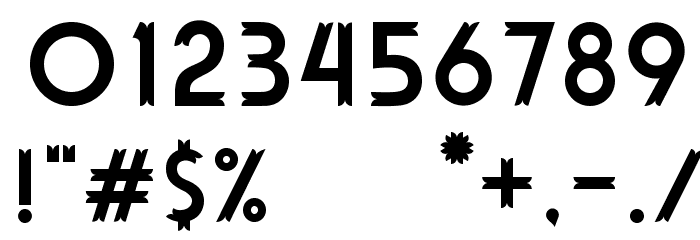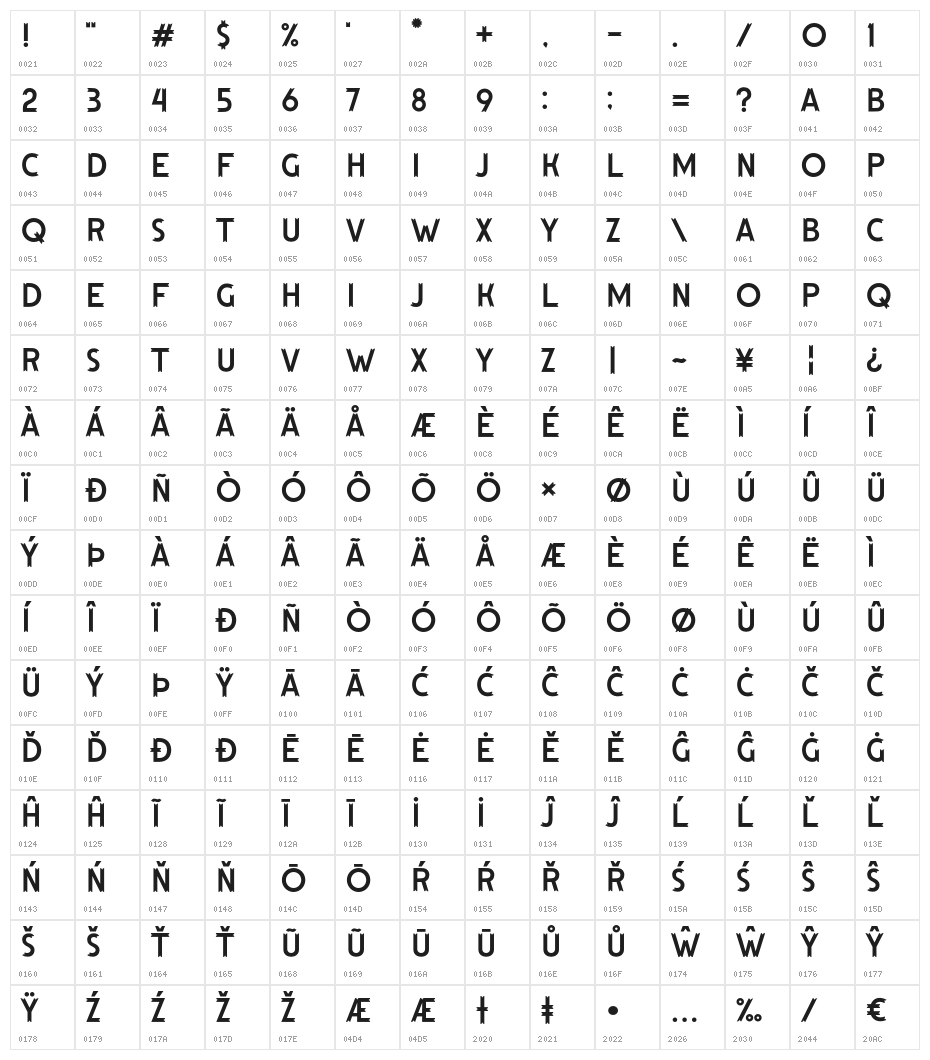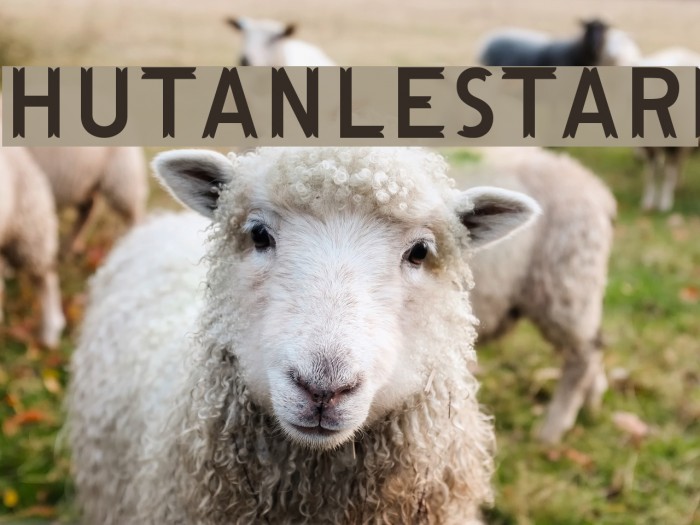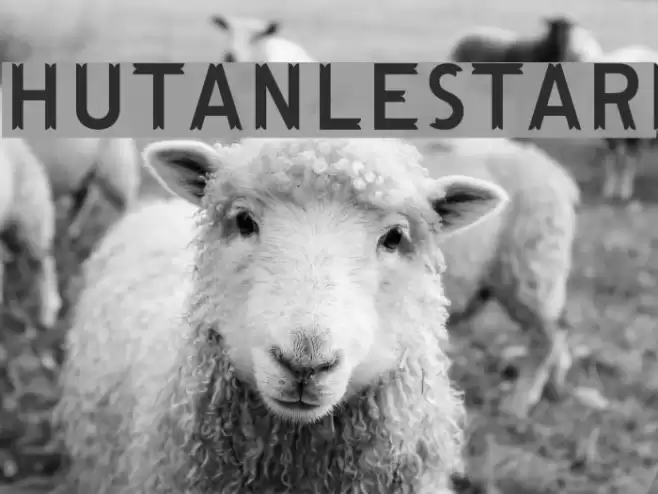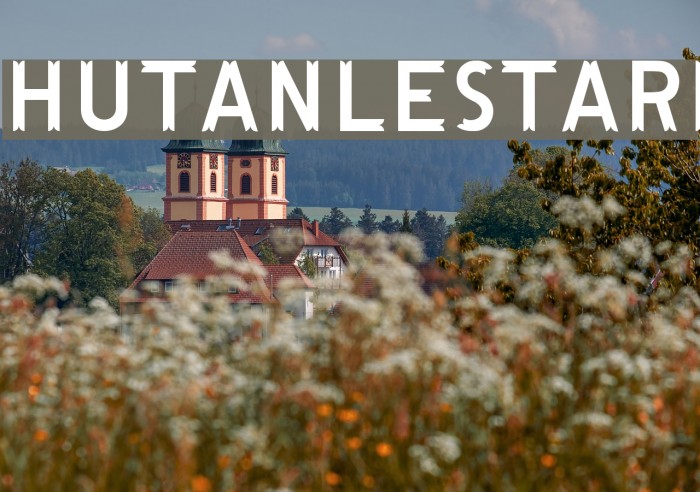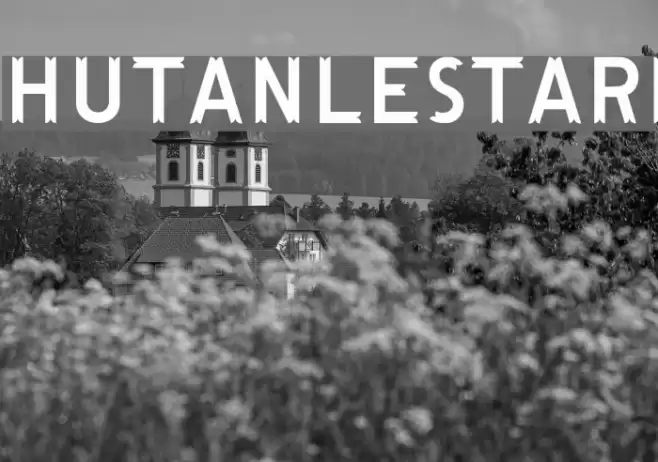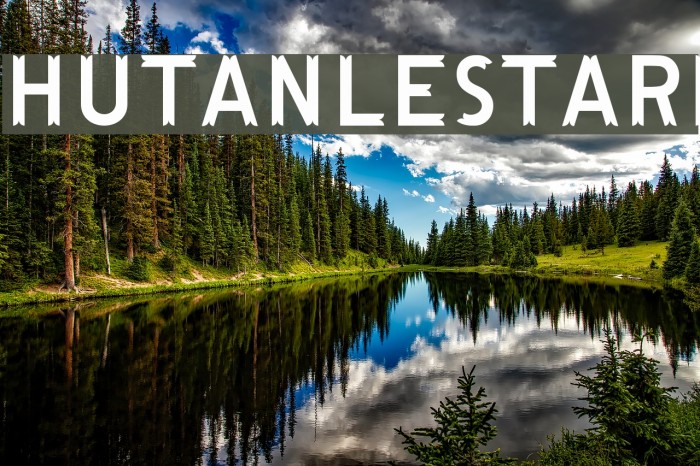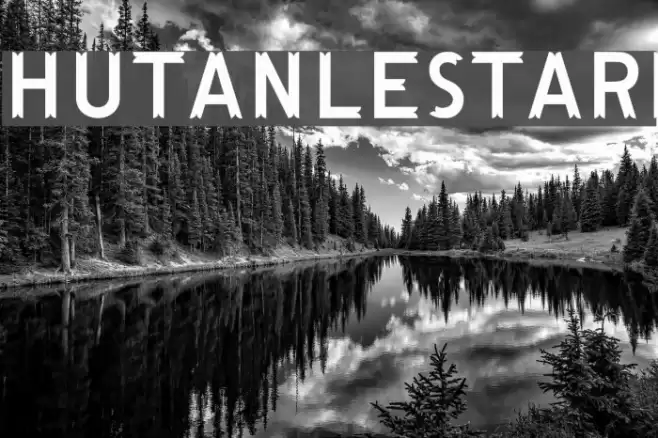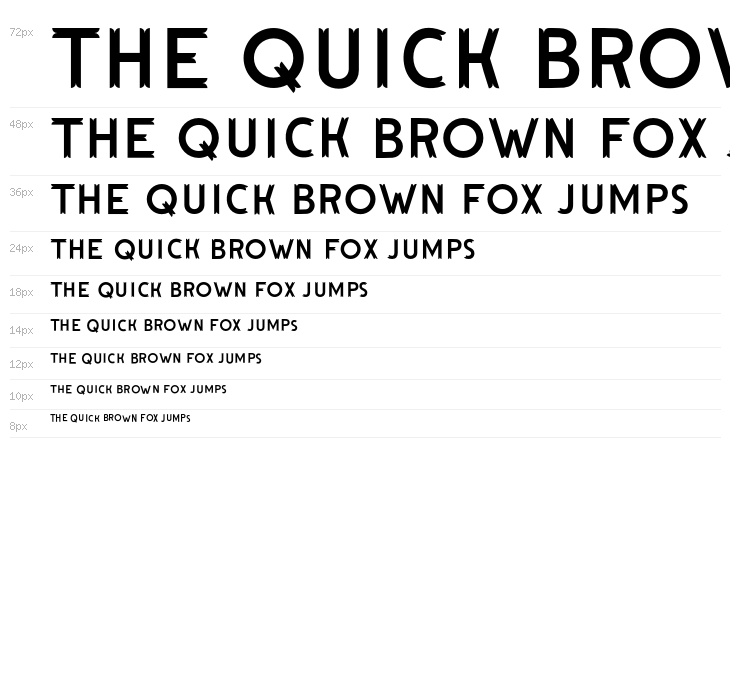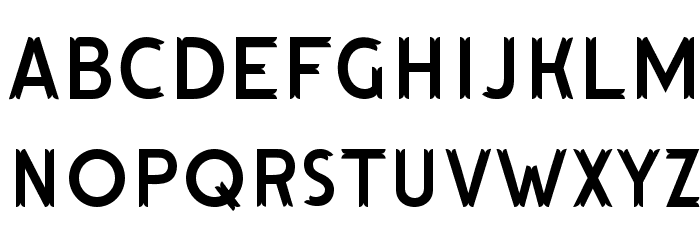
HutanLestari Font
This font features a bold and geometric style with sharp, angular edges that create a striking and modern appearance. The uppercase letters are distinct with their clean lines and uniform height, while the lowercase letters maintain a consistent style that complements the uppercase. The numerals are equally bold and geometric, ensuring readability and a cohesive look across all characters. Special characters are designed with the same angular precision, making them stand out while maintaining harmony with the rest of the font. The overall design is both functional and visually appealing, suitable for a variety of applications.
Proposed ProjectsIdeal for branding, headlines, posters, and modern design projects.